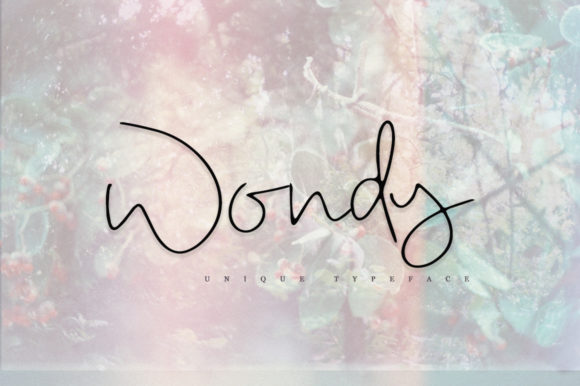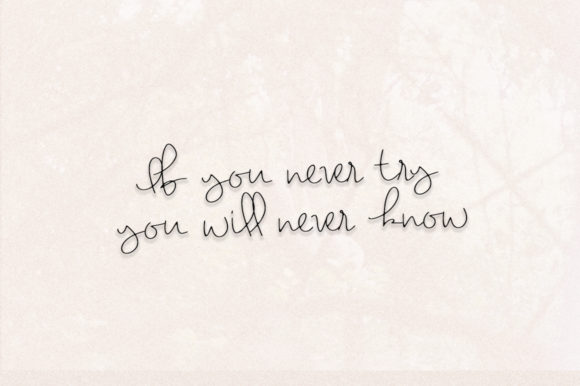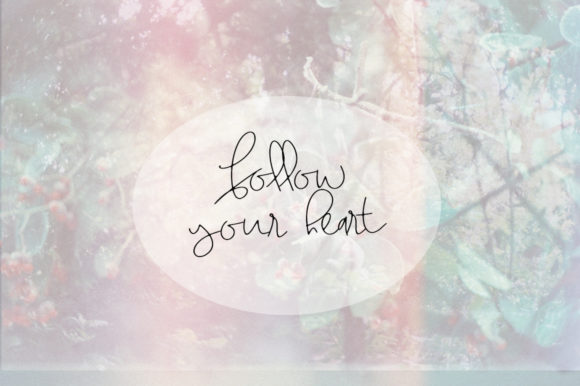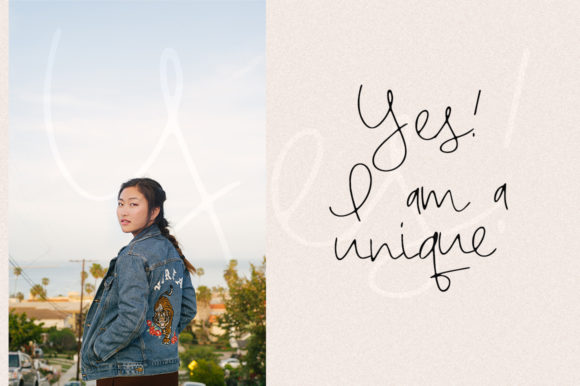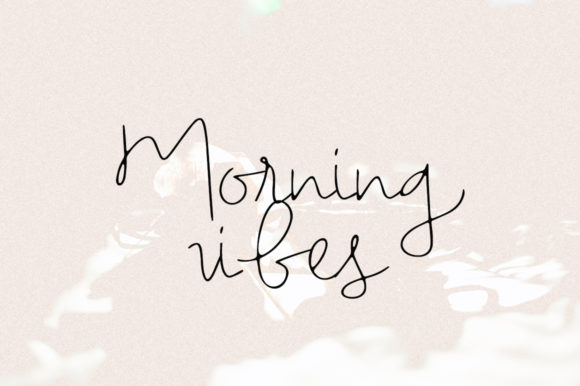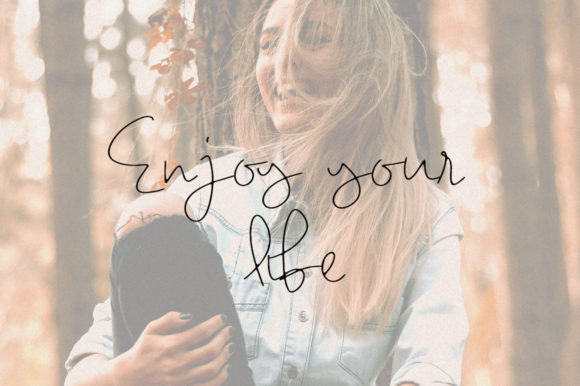
Wondy Font
About Wondy Font
Wondy is a carefully crafted handwritten font with an organic feel. It will add a light and breezy feel to any design idea!